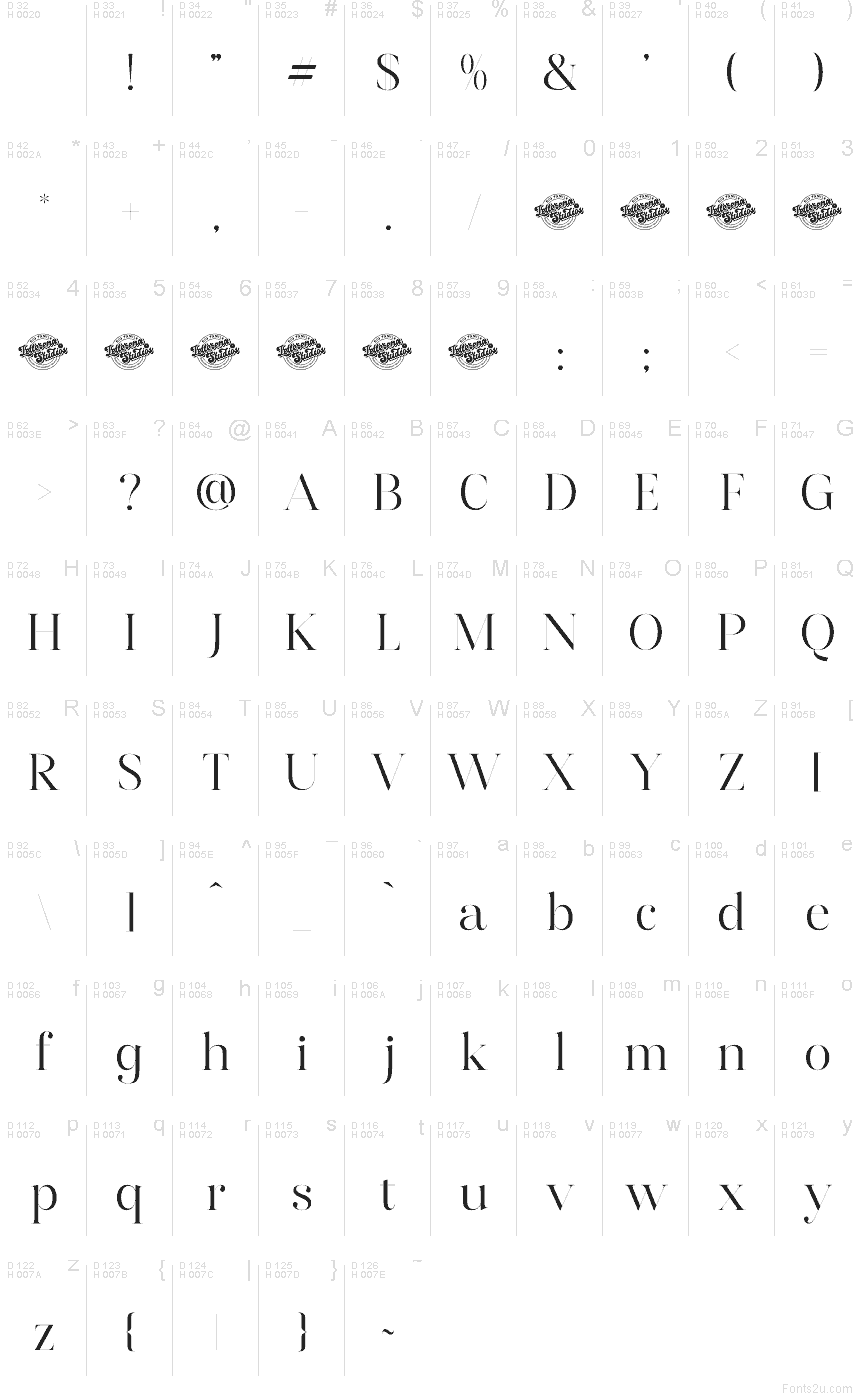
Harfine DEMO VERSION
Harfine font by Letterena Studios is a free serif font that glides across the page with whisper-thin curves and sharply cut stems. The letters feel like they’ve been drawn with a fine calligraphy pen—sleek, tall, and just a little dramatic—giving headlines a poised, editorial sheen. This typeface carries a quiet luxury, with airy spacing that lets each form breathe and catch the light.
Using Harfine in your work adds a refined, magazine-like polish to branding, fashion lookbooks, perfume packaging, book covers, invitations, and social media graphics. This free font thrives at larger sizes where its delicate details stay crisp and legible. Pair Harfine with a simple geometric sans serif for body copy to balance its elegance, and let it lead in titles, logos, and hero text to create a sophisticated visual hierarchy.